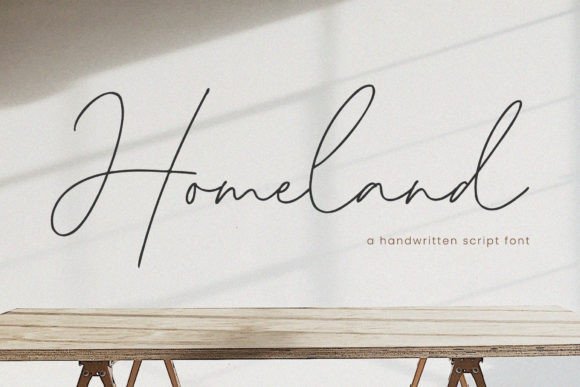
Are you looking for the perfect font to elevate your wedding invitations or thank you cards? Look no further than Homeland Font! Created by Timur type, Homeland is a stylish and elegant script font that will add a touch of class to any design project.
With its flowing lines and delicate curves, Homeland is the perfect choice for anyone looking to create a handwritten feel in their designs. Its versatility makes it suitable for a wide range of projects, from quotes and greeting cards to logos and business cards.
But what really sets Homeland apart is its ability to add a touch of romance and sophistication to wedding invitations and other event-related materials. As a font specifically designed for wedding names, Homeland brings a touch of class to any invitation or announcement.
Don't settle for a generic font when creating your next design project. Let Homeland Font bring your ideas to life with its stunning and elegant script. Its beauty and charm are sure to capture the hearts of your audience and leave a lasting impression. Download Homeland today and experience the magic of a handwritten font that is both captivating and unique.